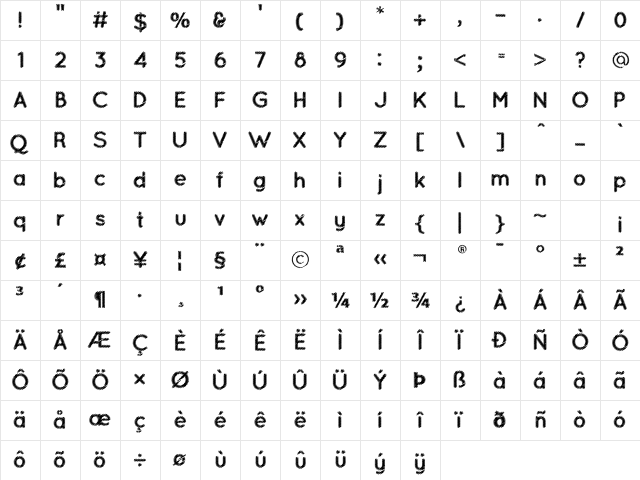
Ocie Bold Free Font
Ocie Bold
Designer: Louis Dorman
Design Context for Ocie
Ocie is a composed and adaptable typeface that performs quietly and consistently across a wide range of design contexts. Its bold stroke weight gives it real presence on the page.